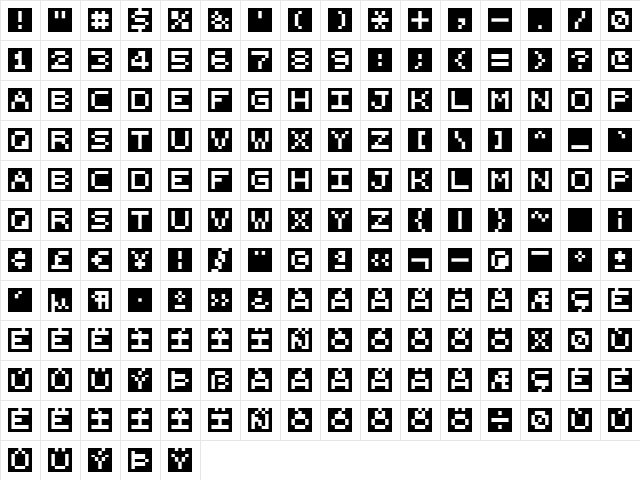
zTerm Block
Design Context for zTerm Typeface
zTerm is a composed and adaptable typeface that performs quietly and consistently across a wide range of design contexts.